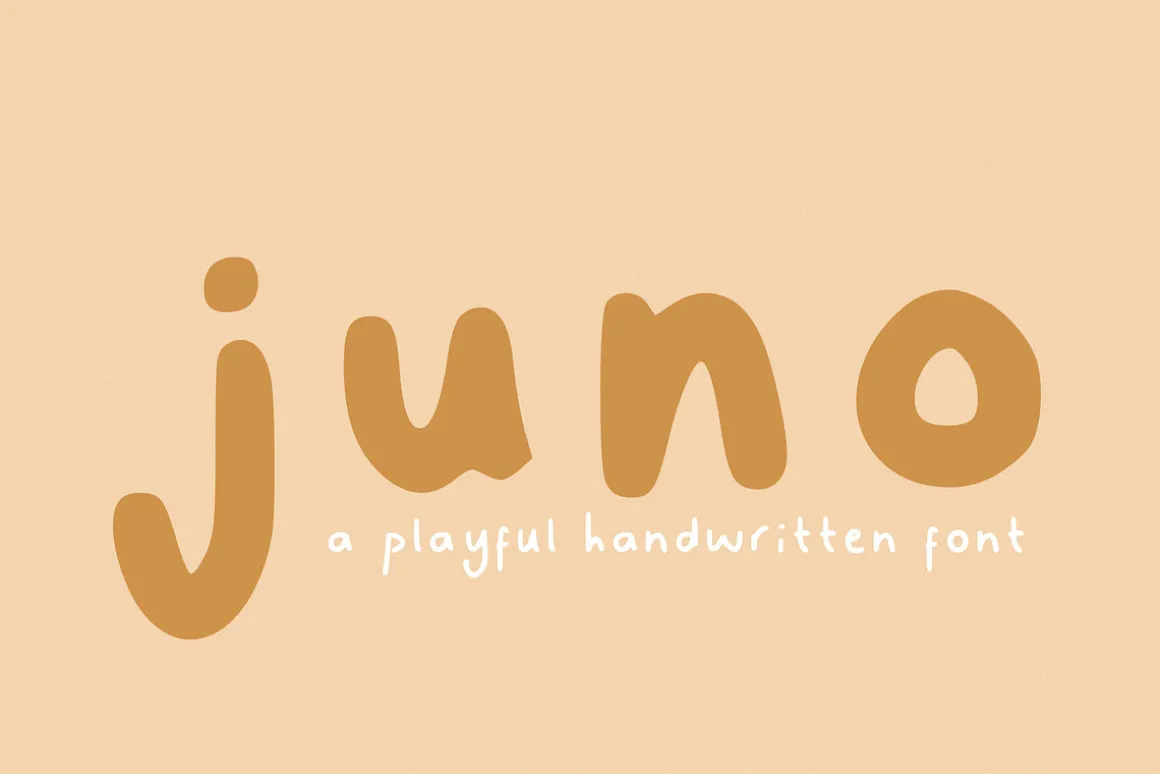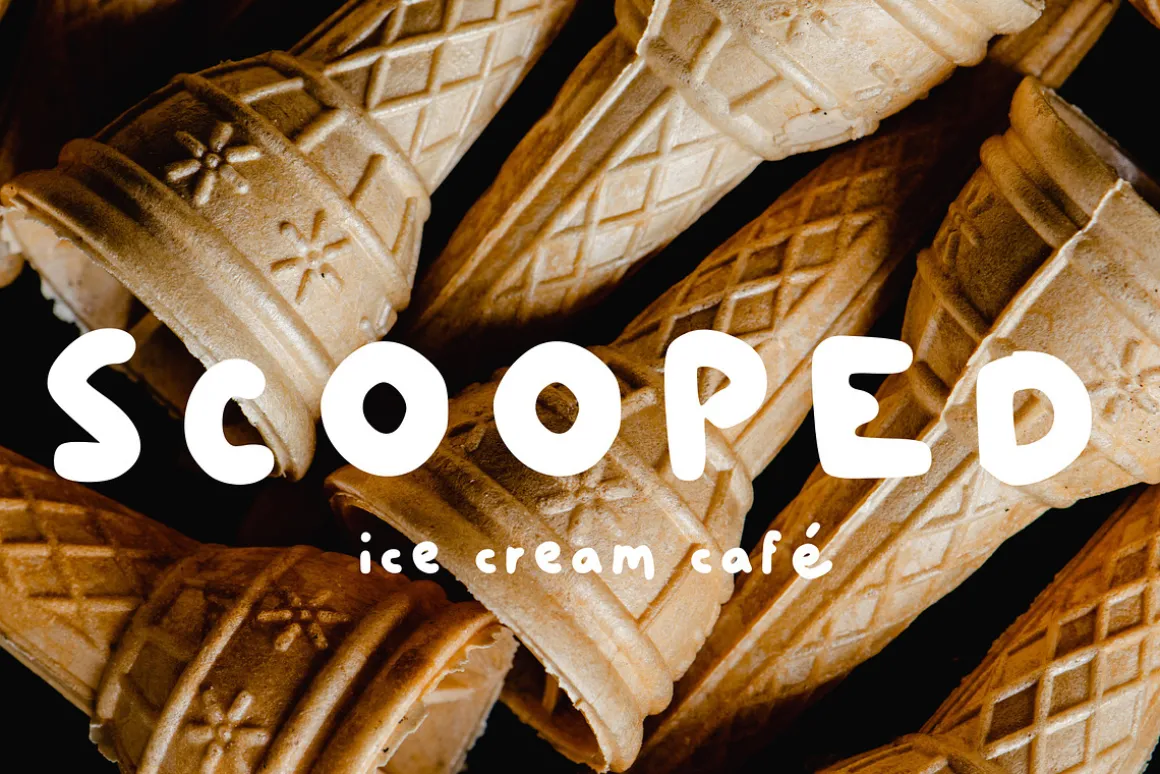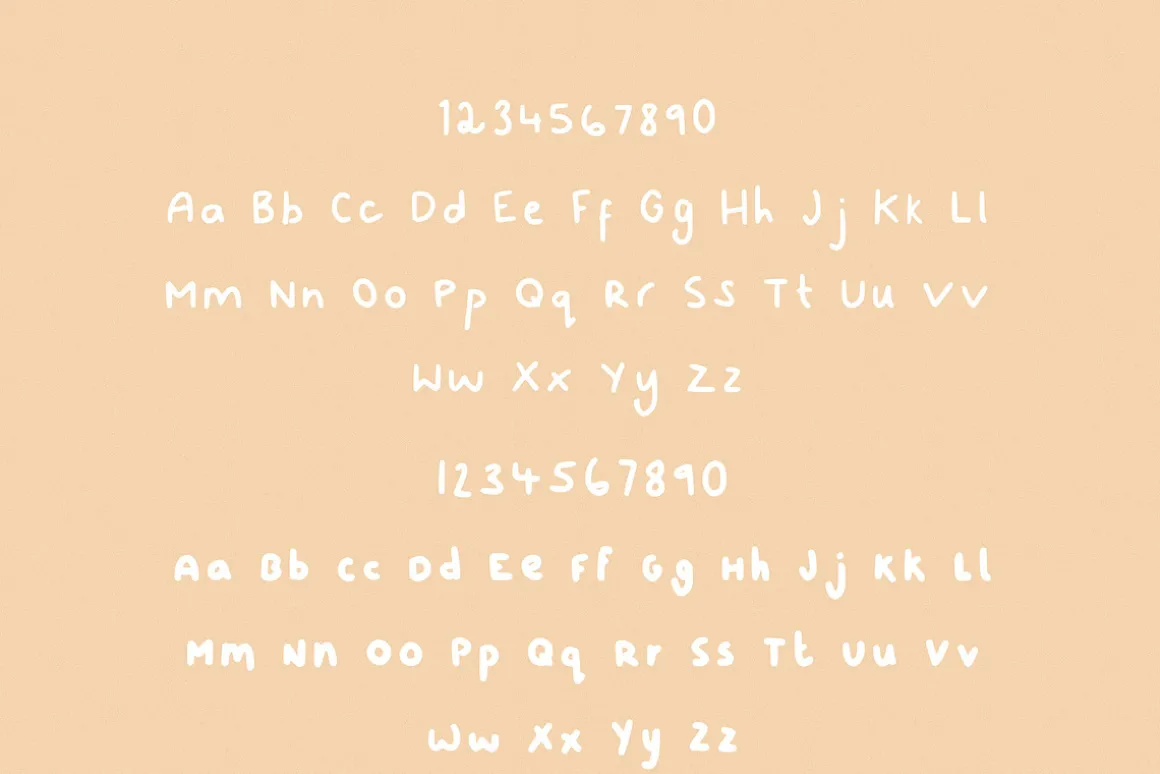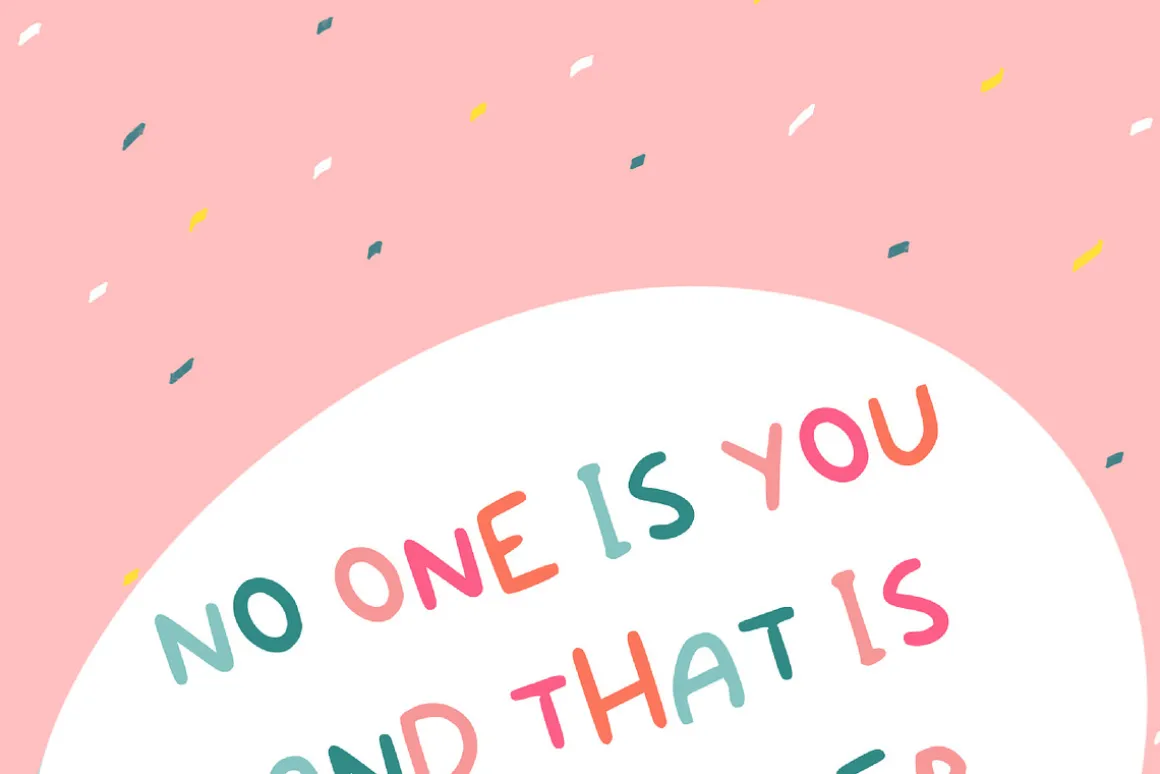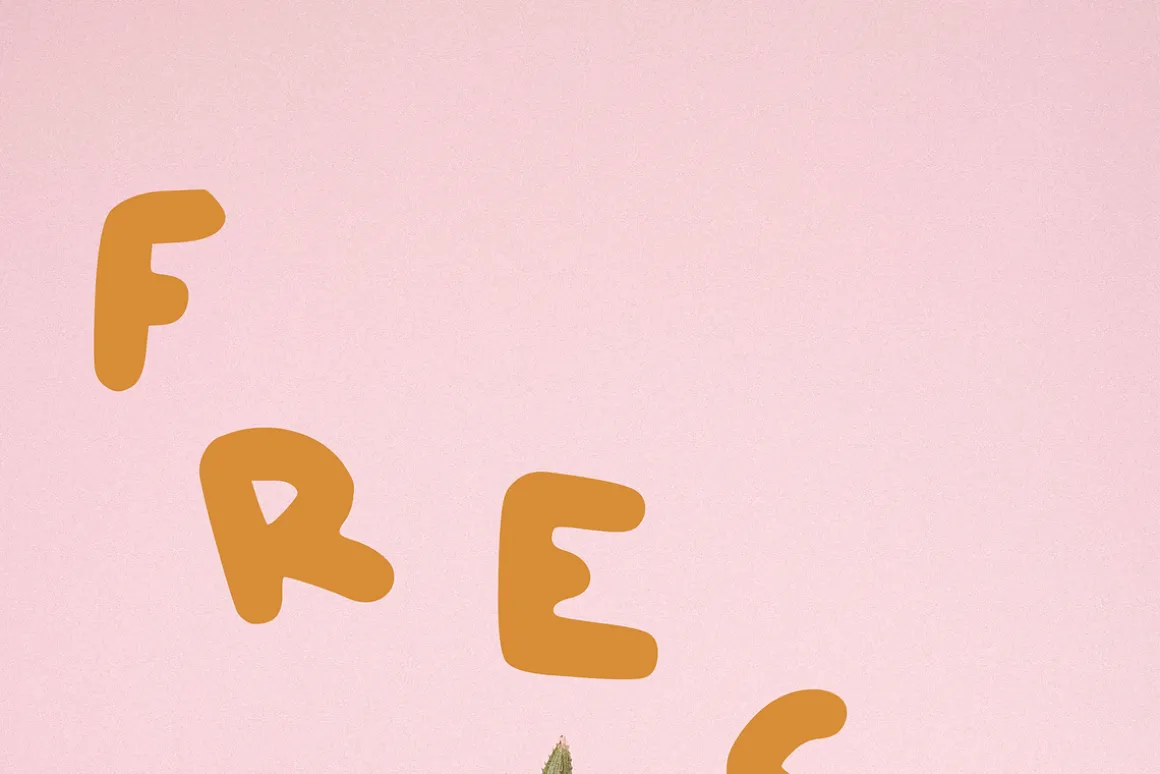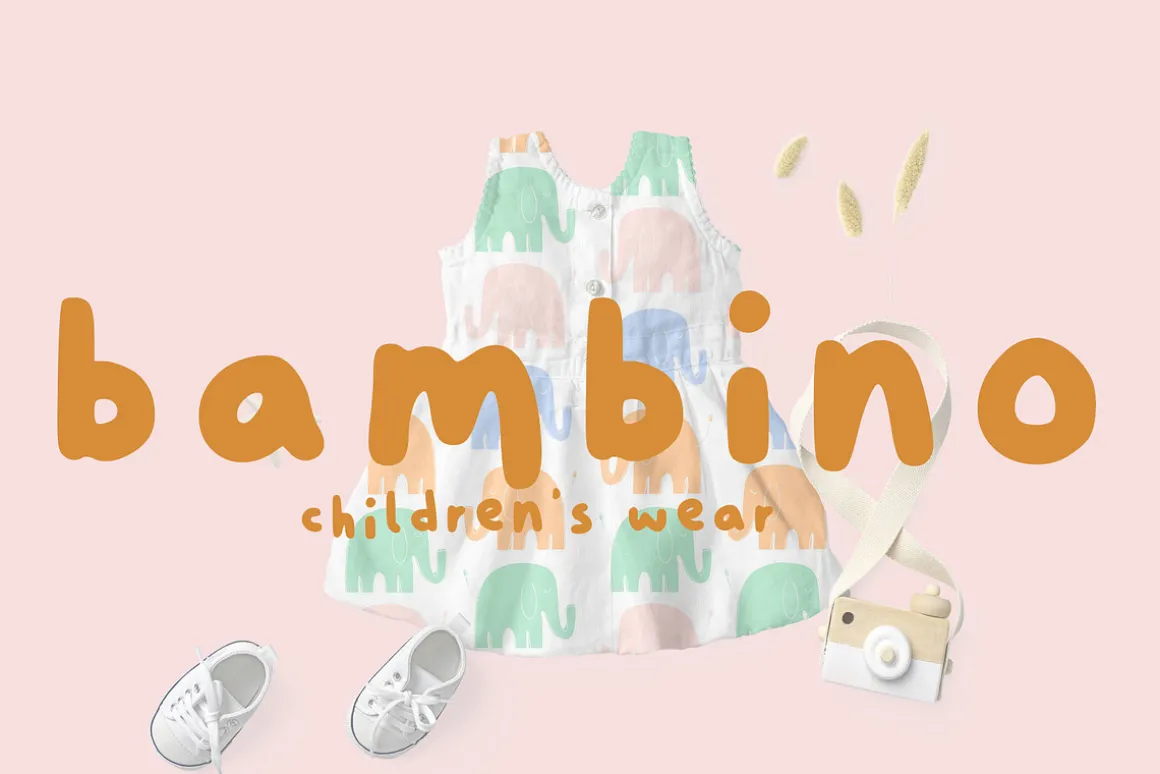
A fun, playful, handwritten font duo. Featuring two fonts – Juno Regular and Juno Bold; Juno is your new favourite quotable font.Perfect for creating insta-worthy graphics, logos or merchandise, Juno is perfect for the modern and fresh brand.
- Punctuation and Symbols
- Numbers
- Basic German, French and Spanish alphabet